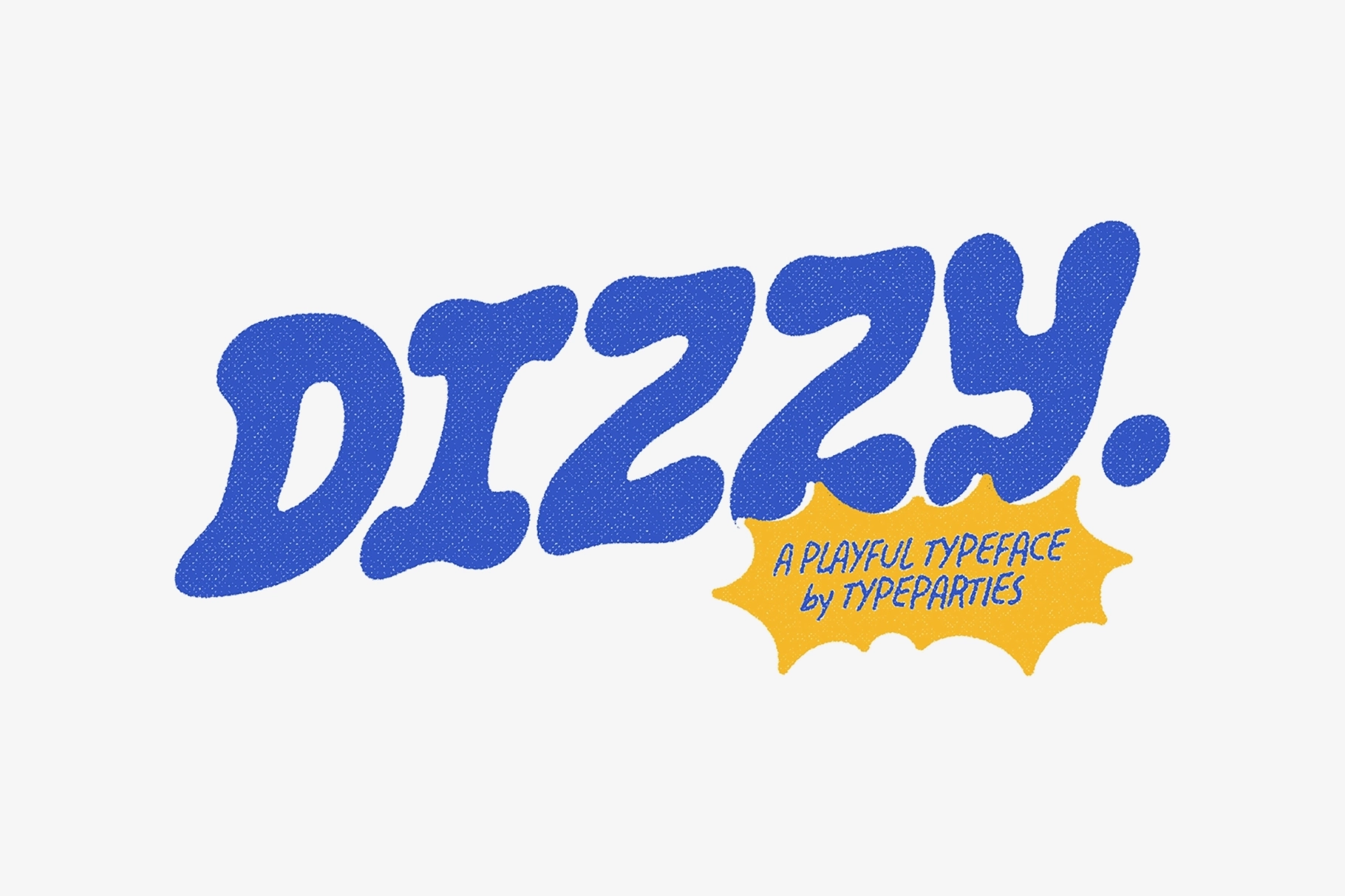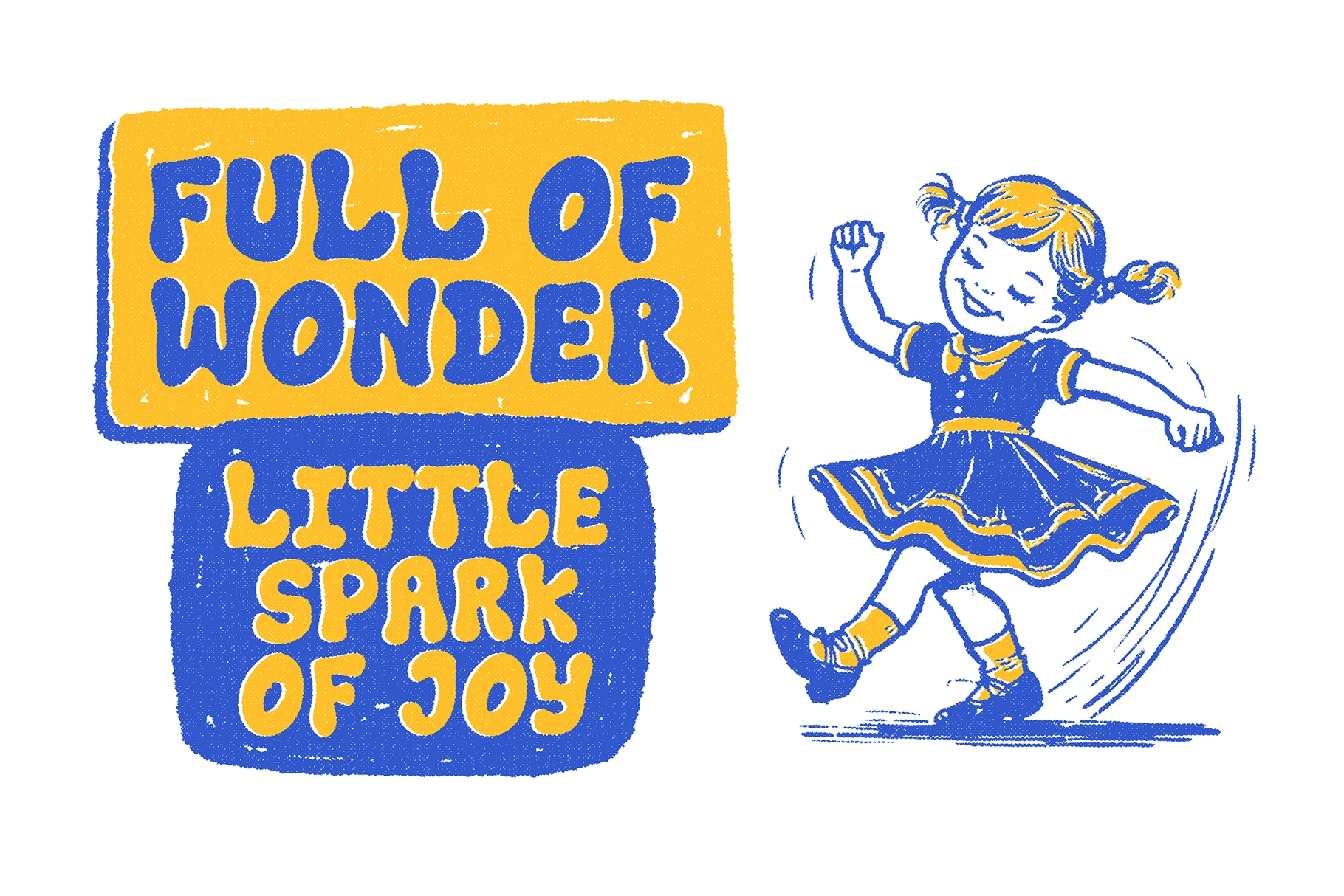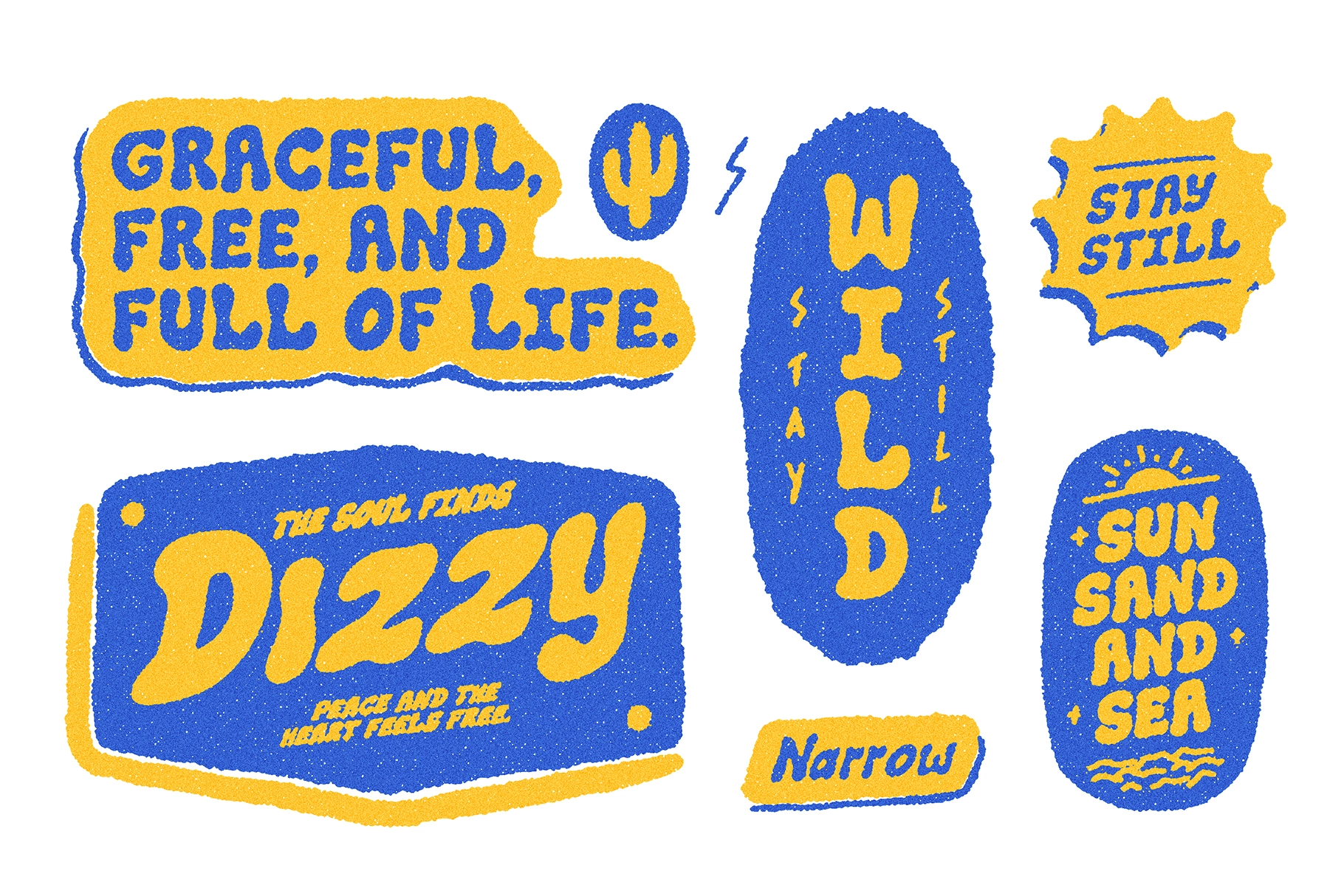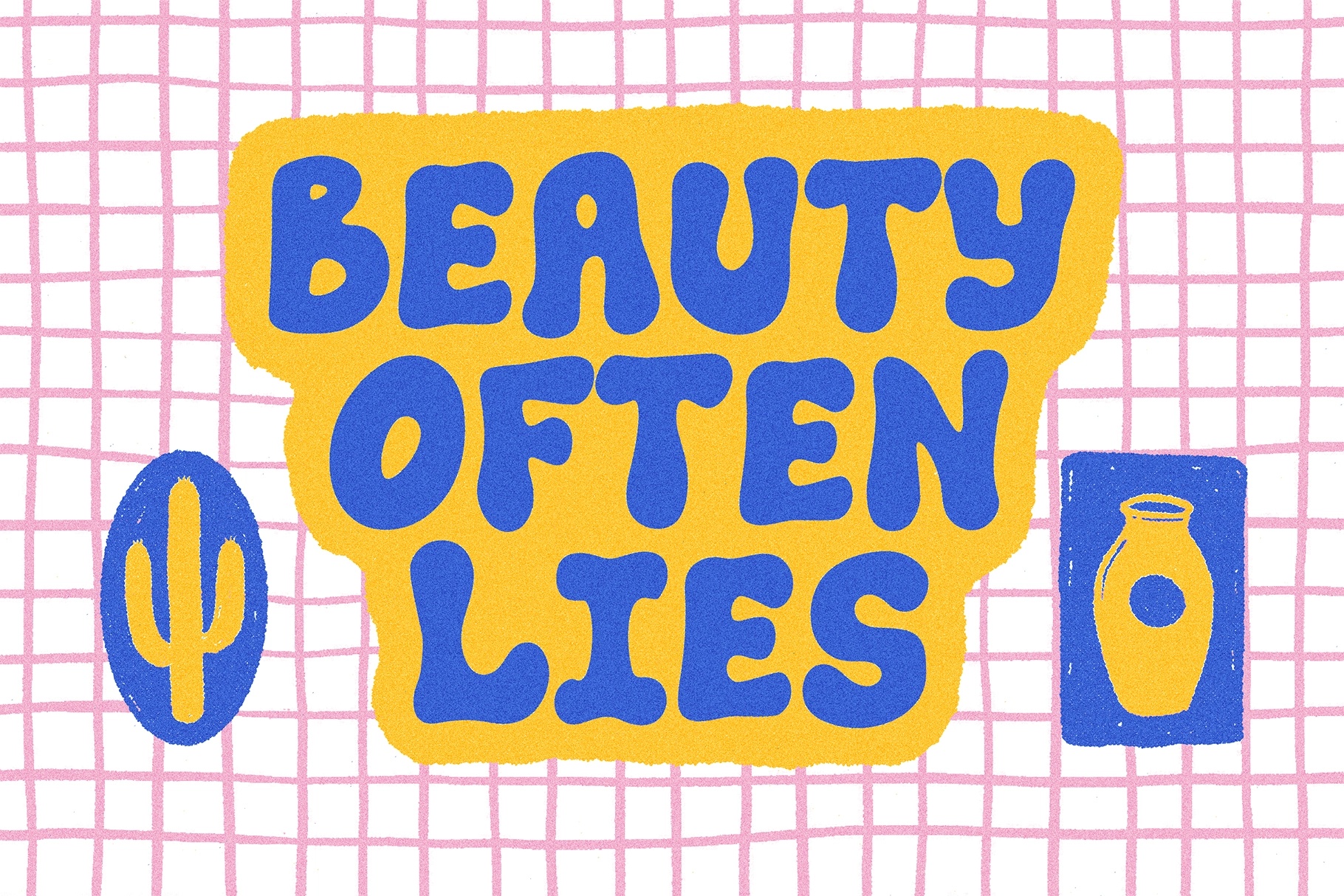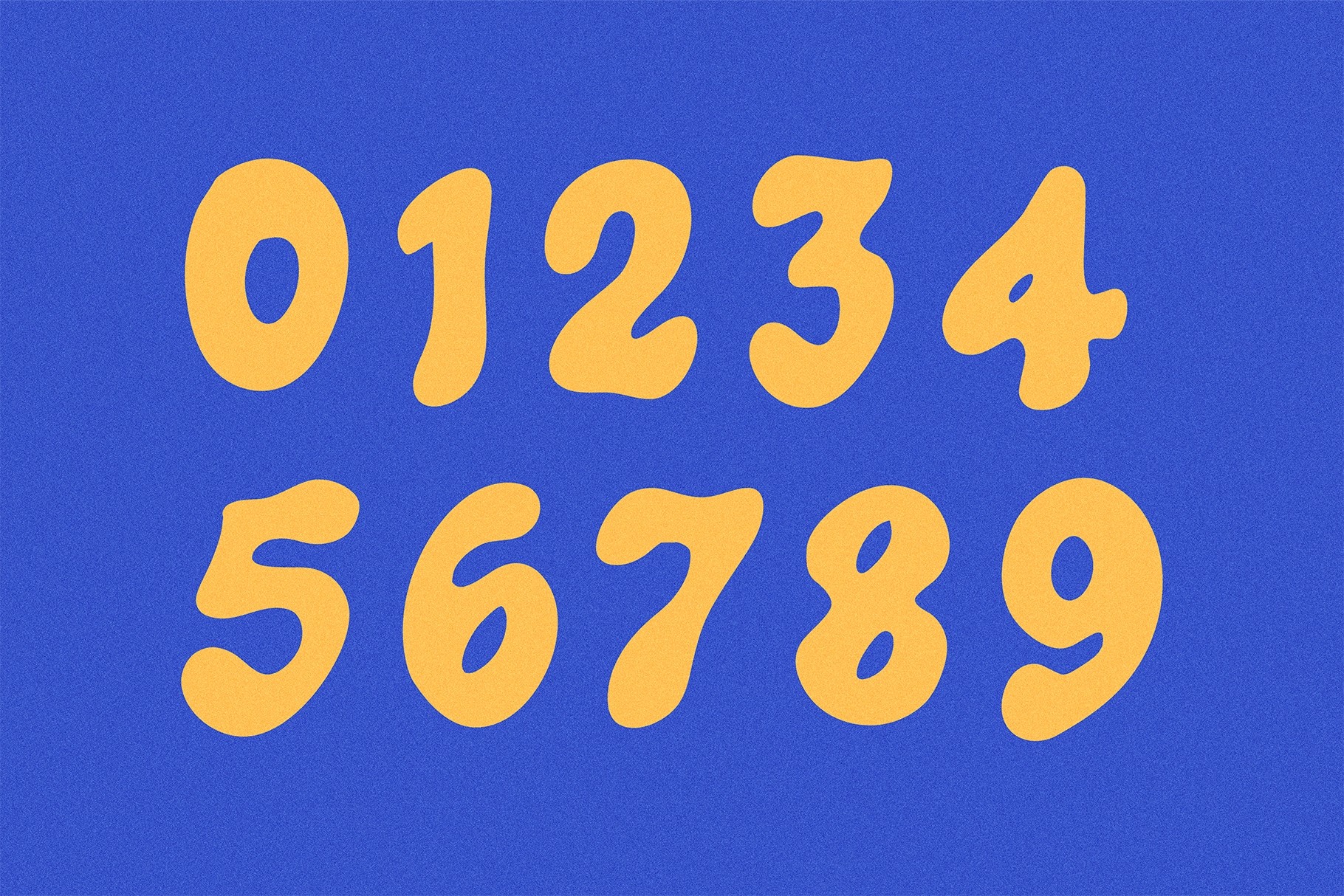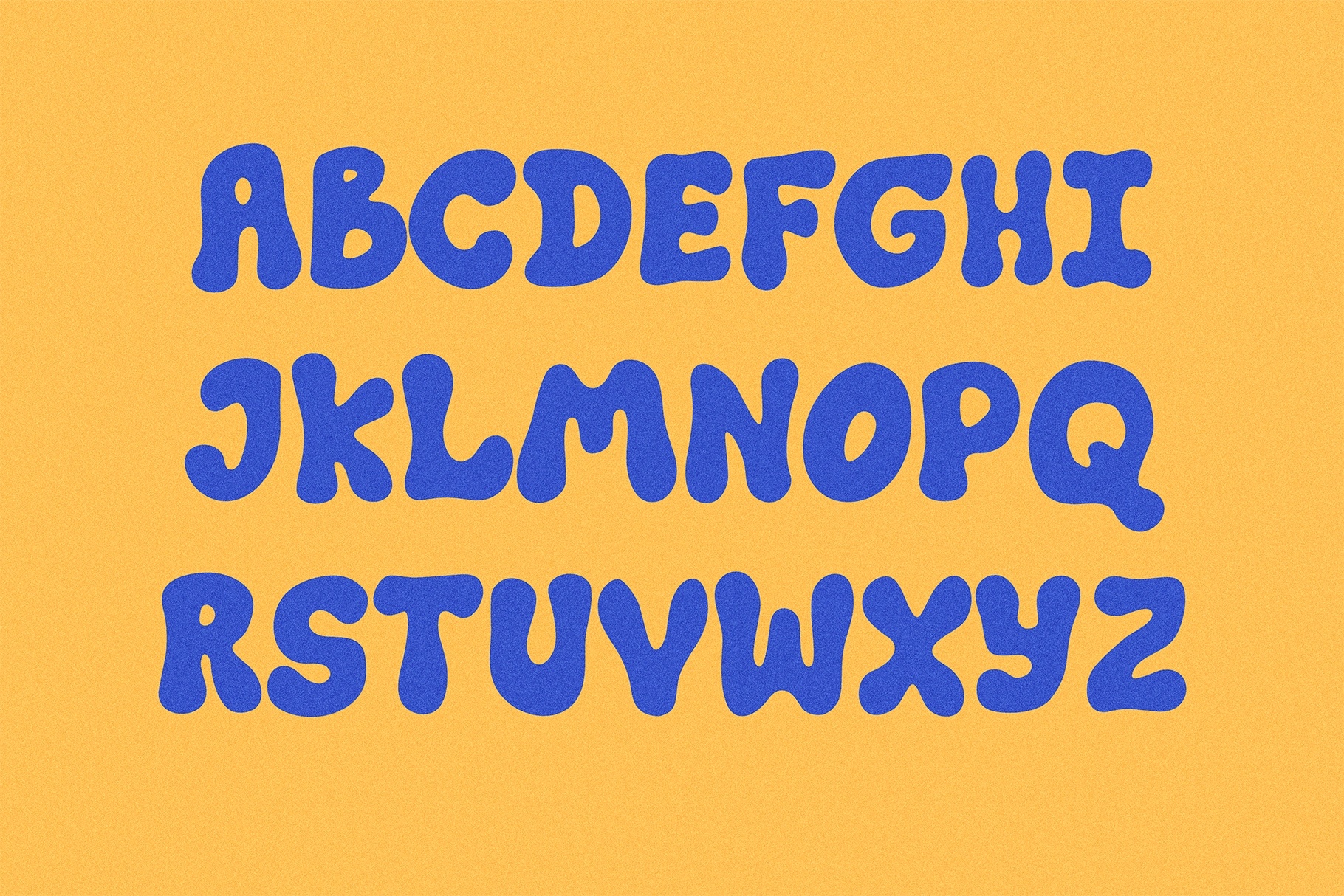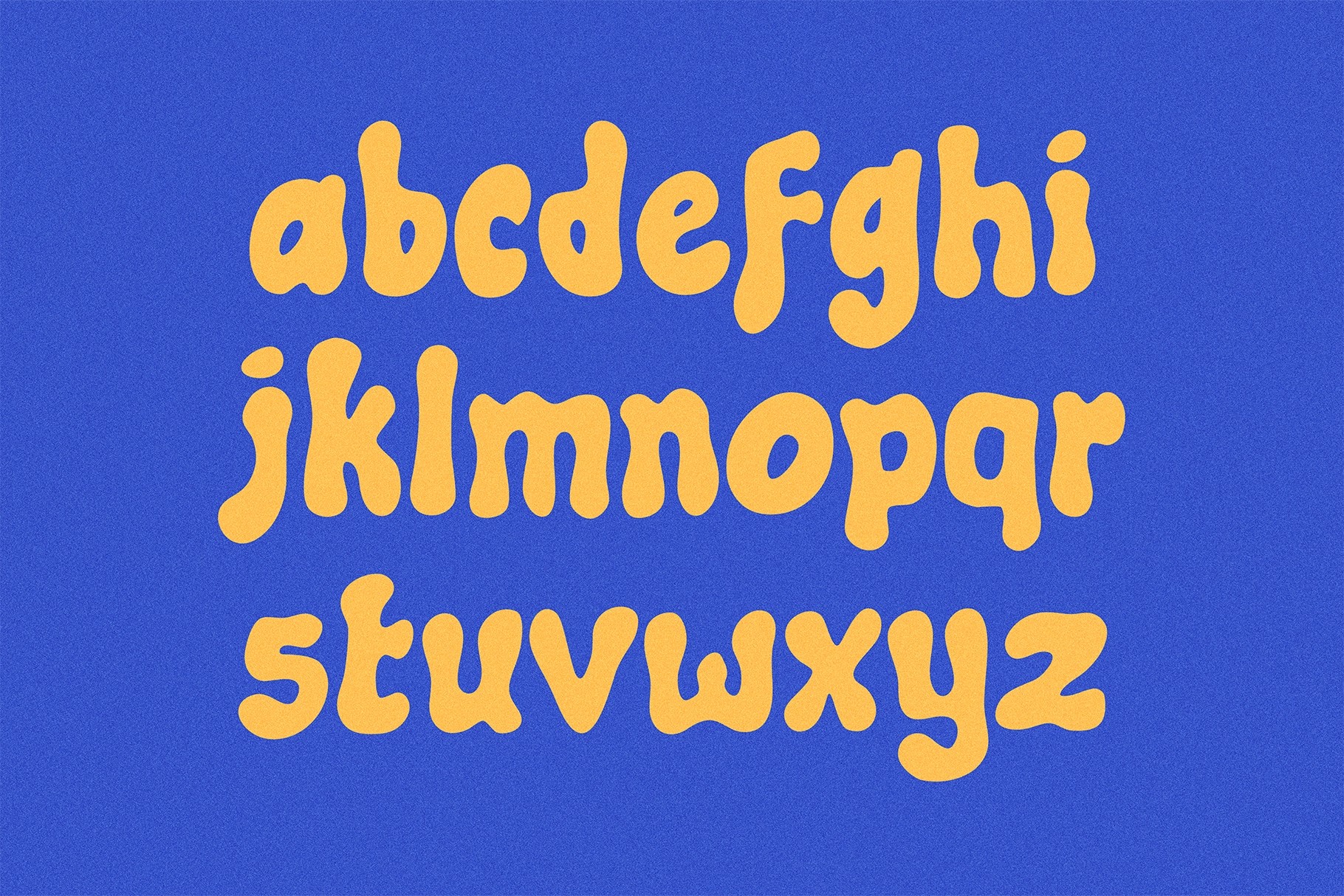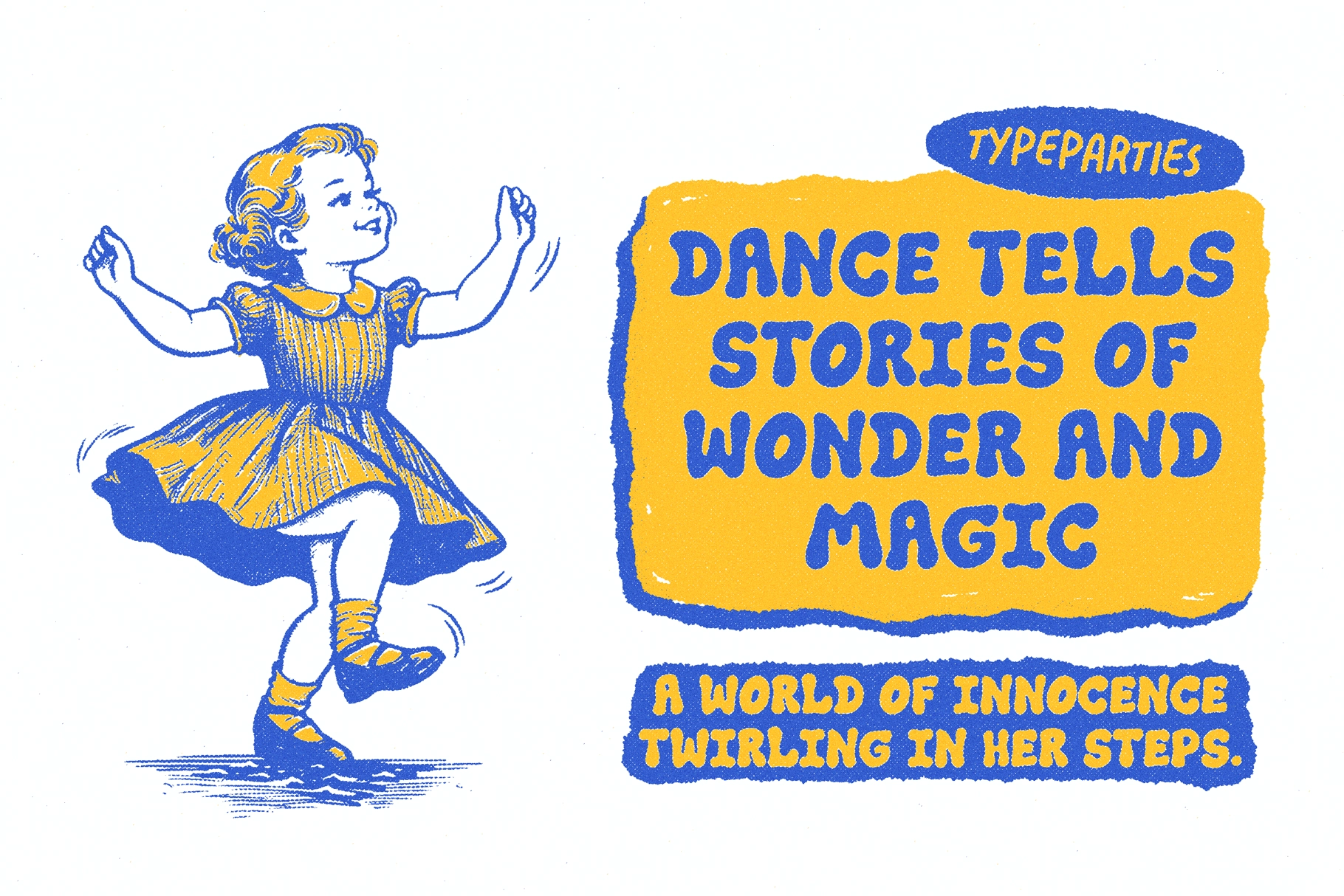
Dizzy - 70s Inspired Chunky Display Typeface
ATP-Dizzy
A bold, playful display typeface with chunky rounded shapes and a hand-printed feel. It’s made for joyful headlines and retro-inspired visuals—perfect for posters, kids branding, packaging, stickers, apparel graphics, social media, and any project that needs friendly, energetic lettering. The font keeps strong readability while adding a charming vintage vibe to every word.
- Playful retro display style
- Numbers & punctuation
- Great for headlines, posters, logos, packaging, stickers